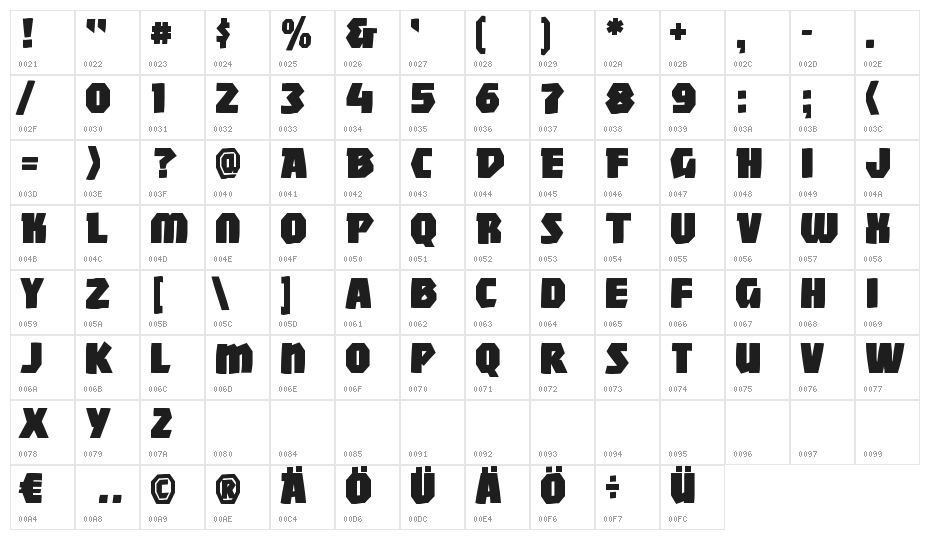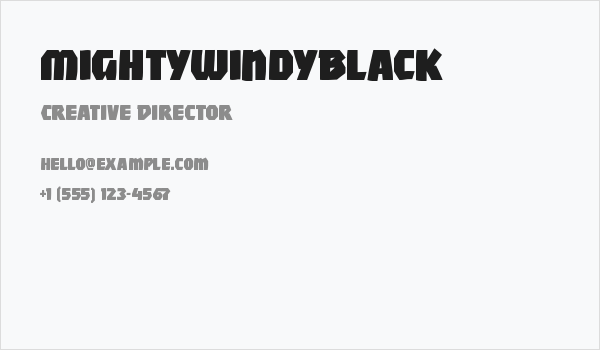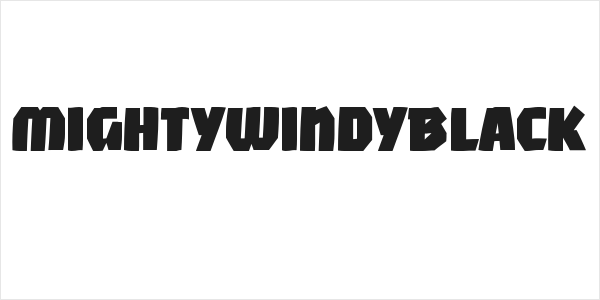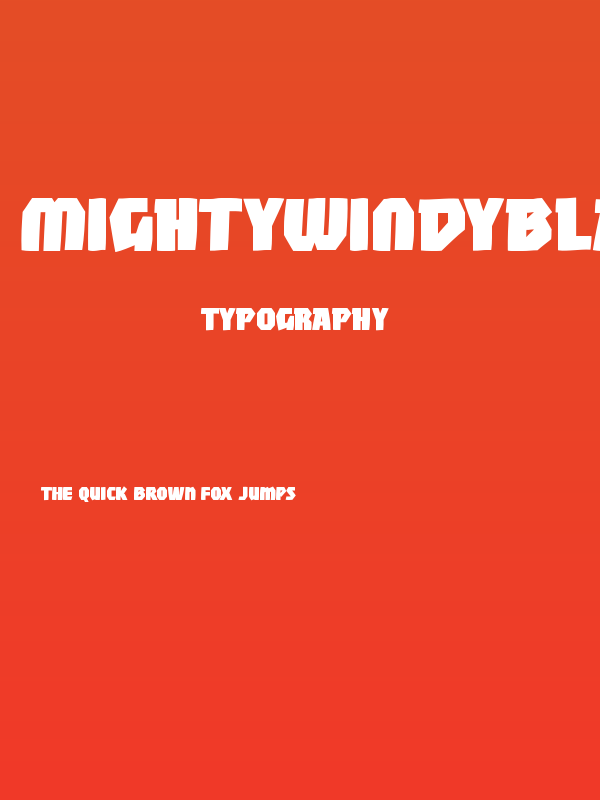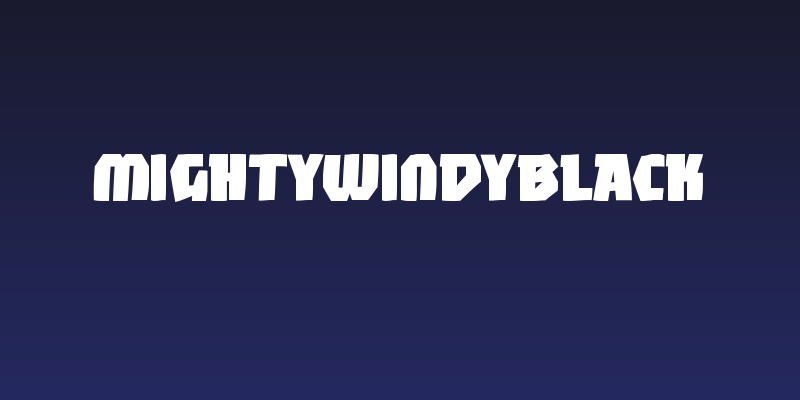
MightyWindyBlack Font
MightyWindyBlack Description
This font features a bold and dynamic design with a strong presence. The characters are blocky and angular, giving it a powerful and impactful look. The uppercase and lowercase letters maintain a consistent style, with sharp edges and a slightly condensed form. The numbers and special characters follow the same bold and geometric aesthetic, ensuring uniformity across all glyphs. This font is ideal for projects that require a striking and attention-grabbing typeface, such as posters, headlines, or branding materials.
| Proposed Projects | Ideal for posters, headlines, branding, and any design requiring a bold statement. |